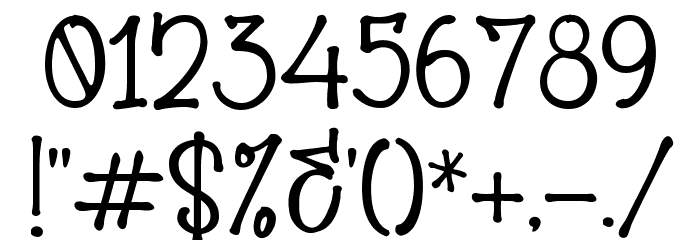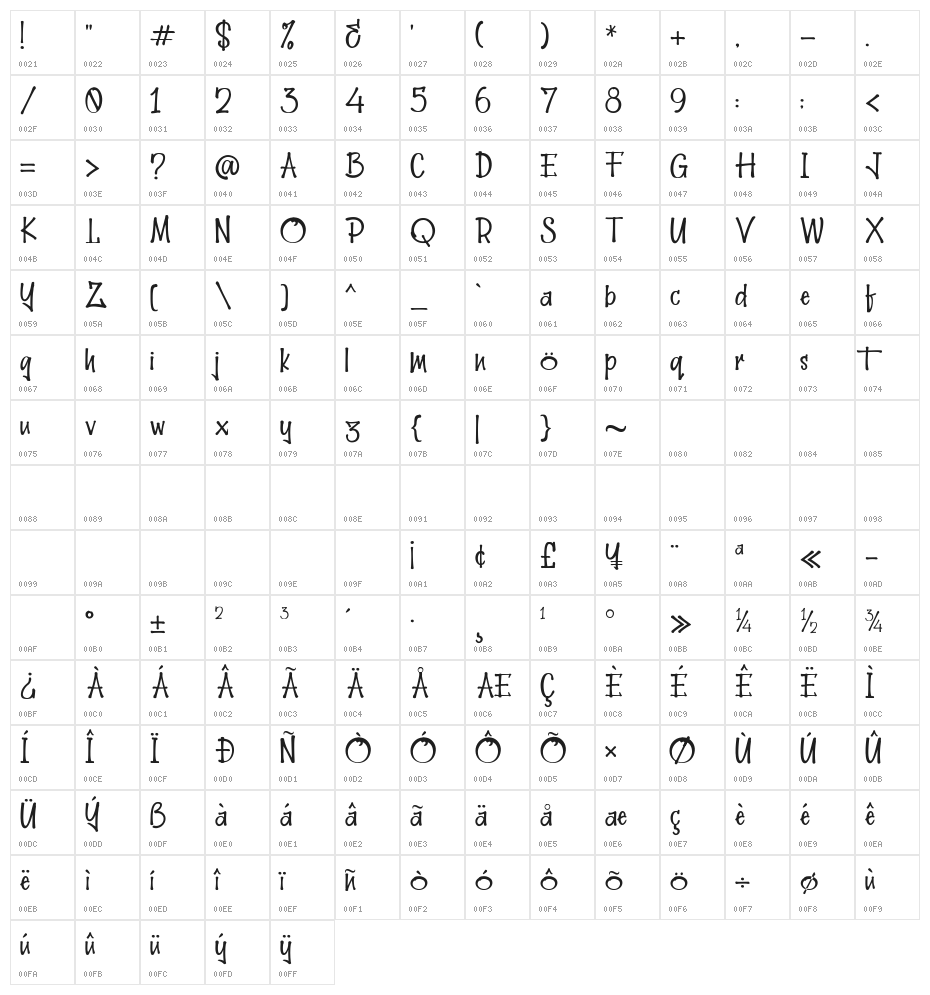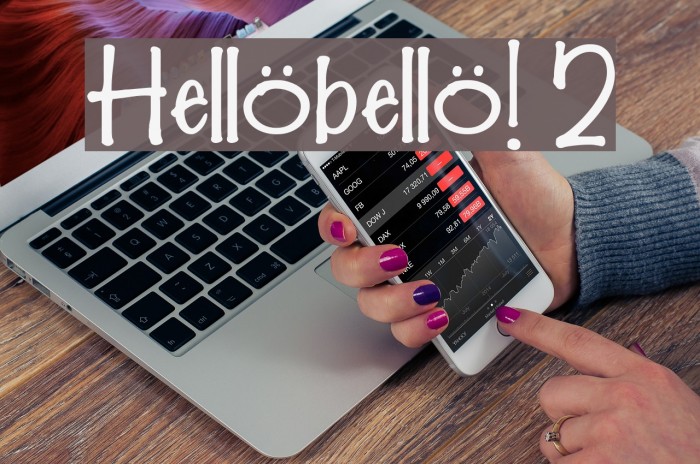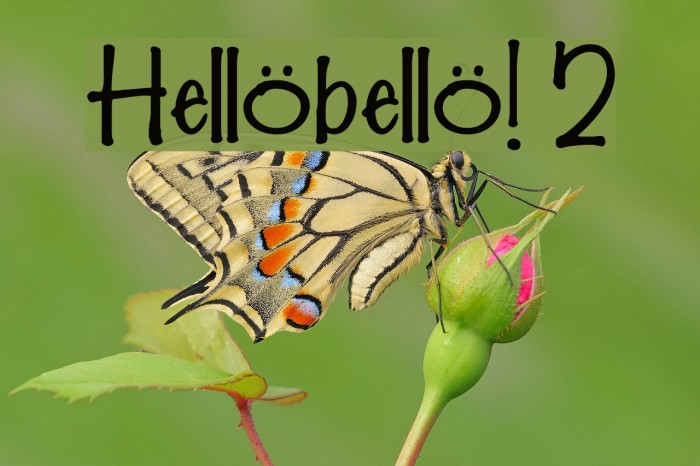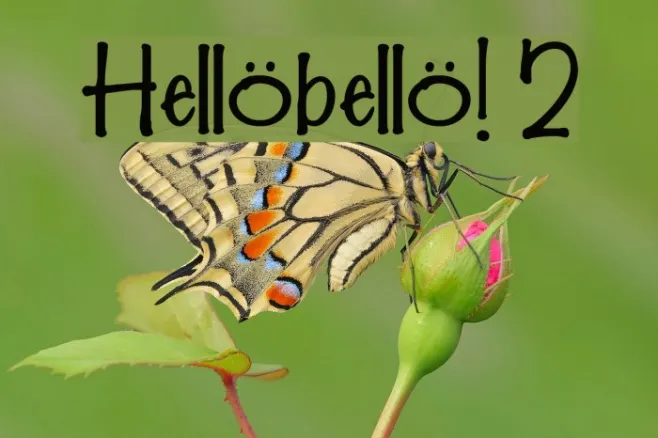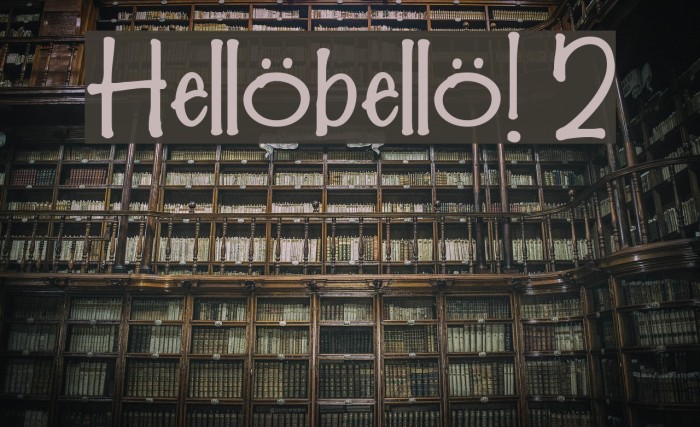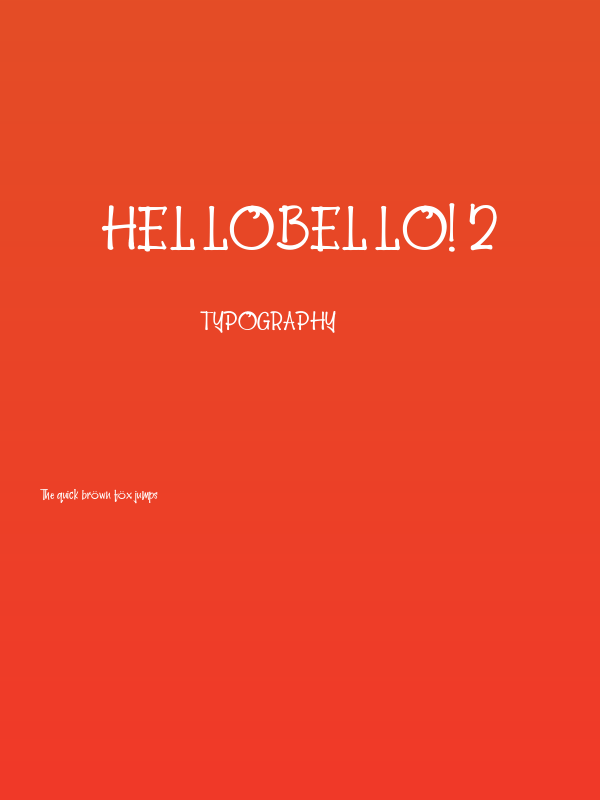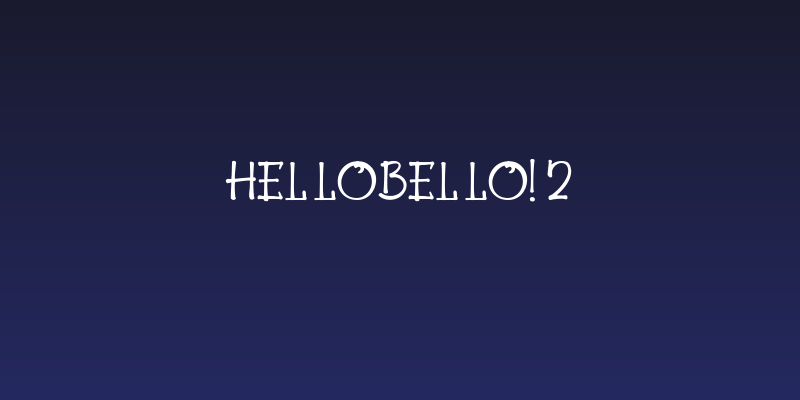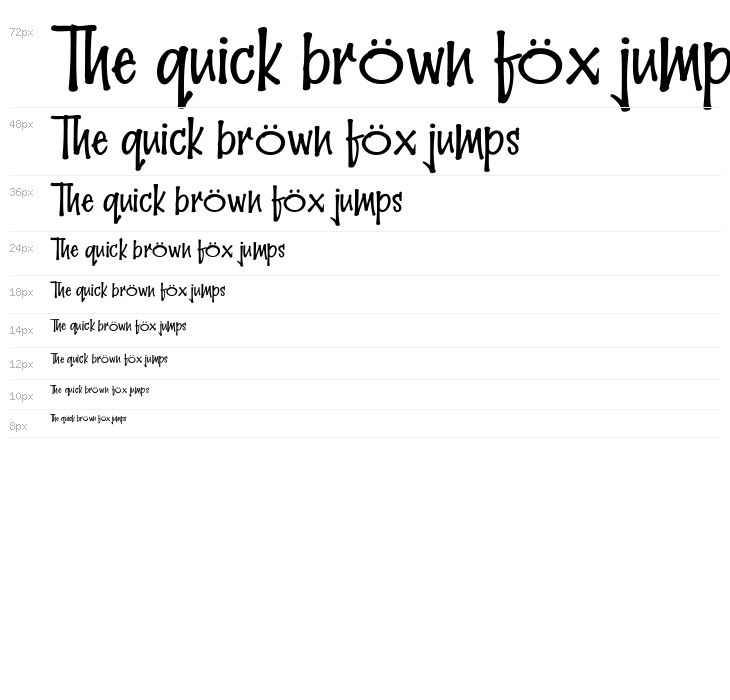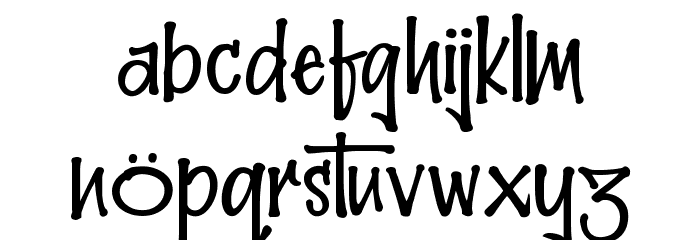
Hellobello! 2 Font
Hellobello! 2 Description
This font features a playful and informal style with a handwritten appearance. The characters are slightly irregular, adding a whimsical and friendly touch. The uppercase letters are tall and narrow, while the lowercase letters maintain a consistent height with a slight slant, enhancing the casual feel. The numbers and special characters follow the same playful design, making the font versatile for creative projects. The strokes are consistent in thickness, providing a balanced look across all characters.
| Proposed Projects | Ideal for children's books, greeting cards, playful branding, and casual invitations. |